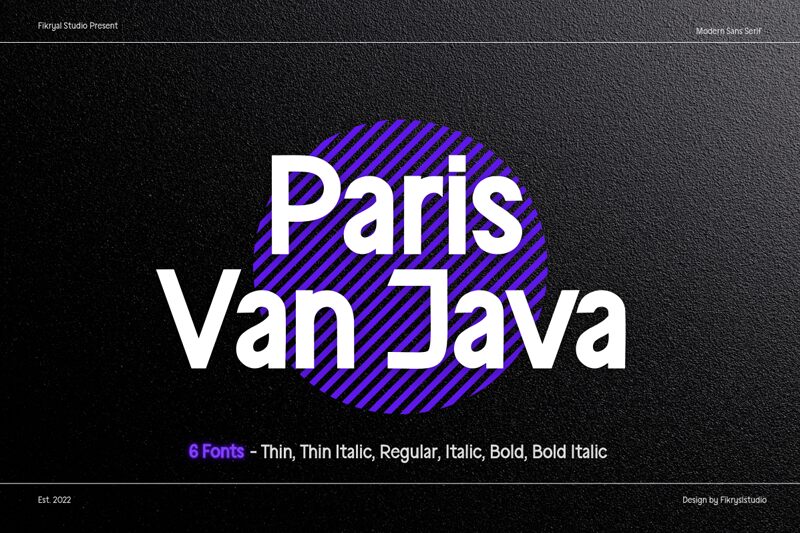
Paris Van Java Italic
Paris Van Java Italic font. Designed by Fikryal Studio, this elegant italic serif typeface is perfect for adding a classic and sophisticated touch to your designs. Paris Van Java Italic features moderate contrast, flowing curves, and an elegantly slanted design to create a formal, classic look.
Paris Van Java Italic is ideal for logo design, branding projects, label design, invitations, wedding designs and card headings. It can also be used to great effect in posters and short body text. Suitable for use in both digital and print works this versatile family also supports multilingual characters! Paris Van Java makes the task of adding elegance to your project an effortless one!